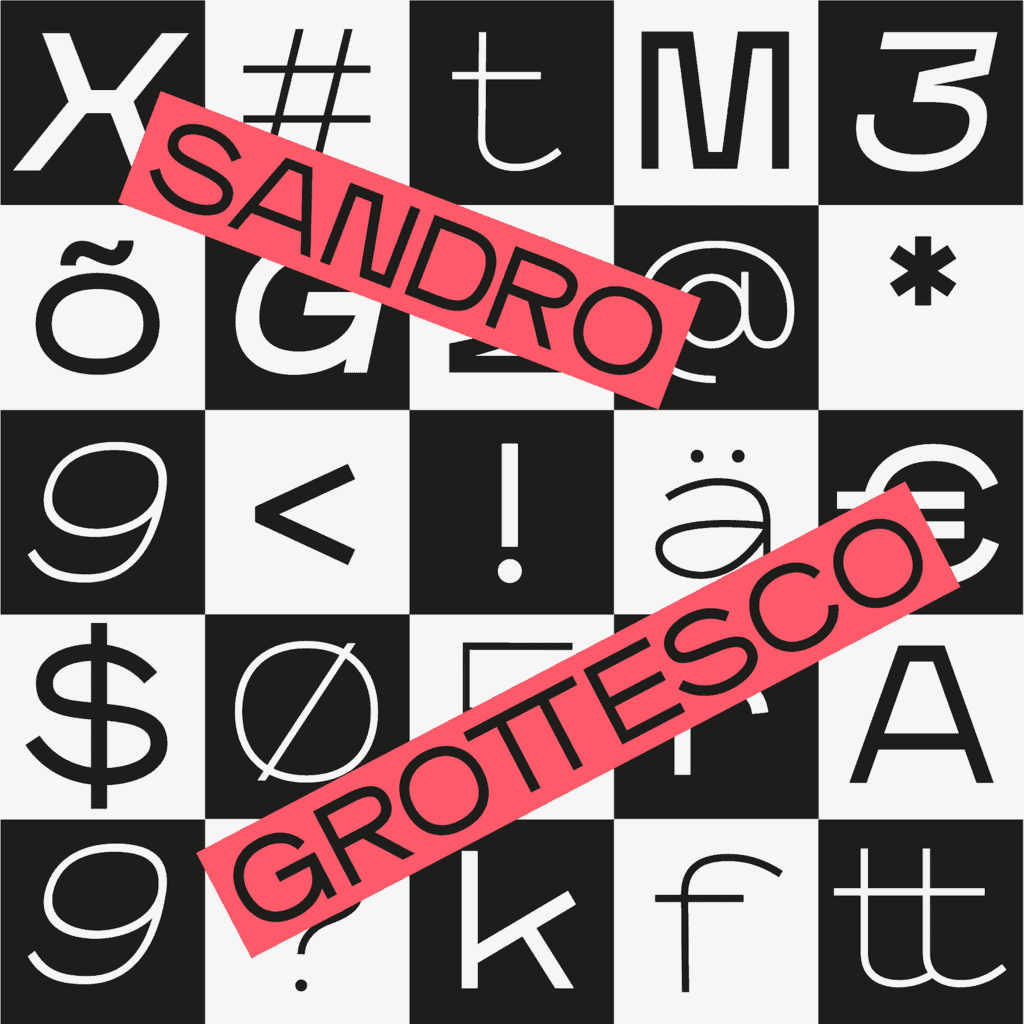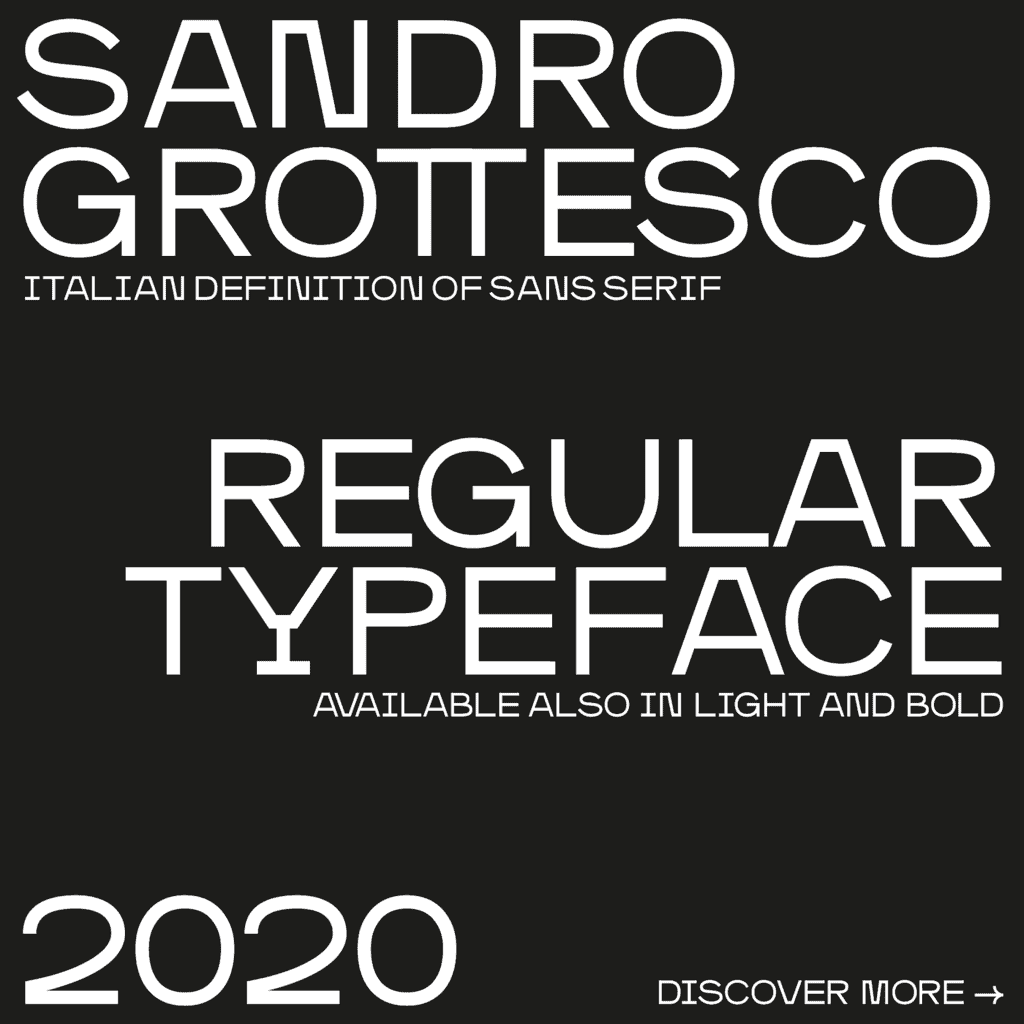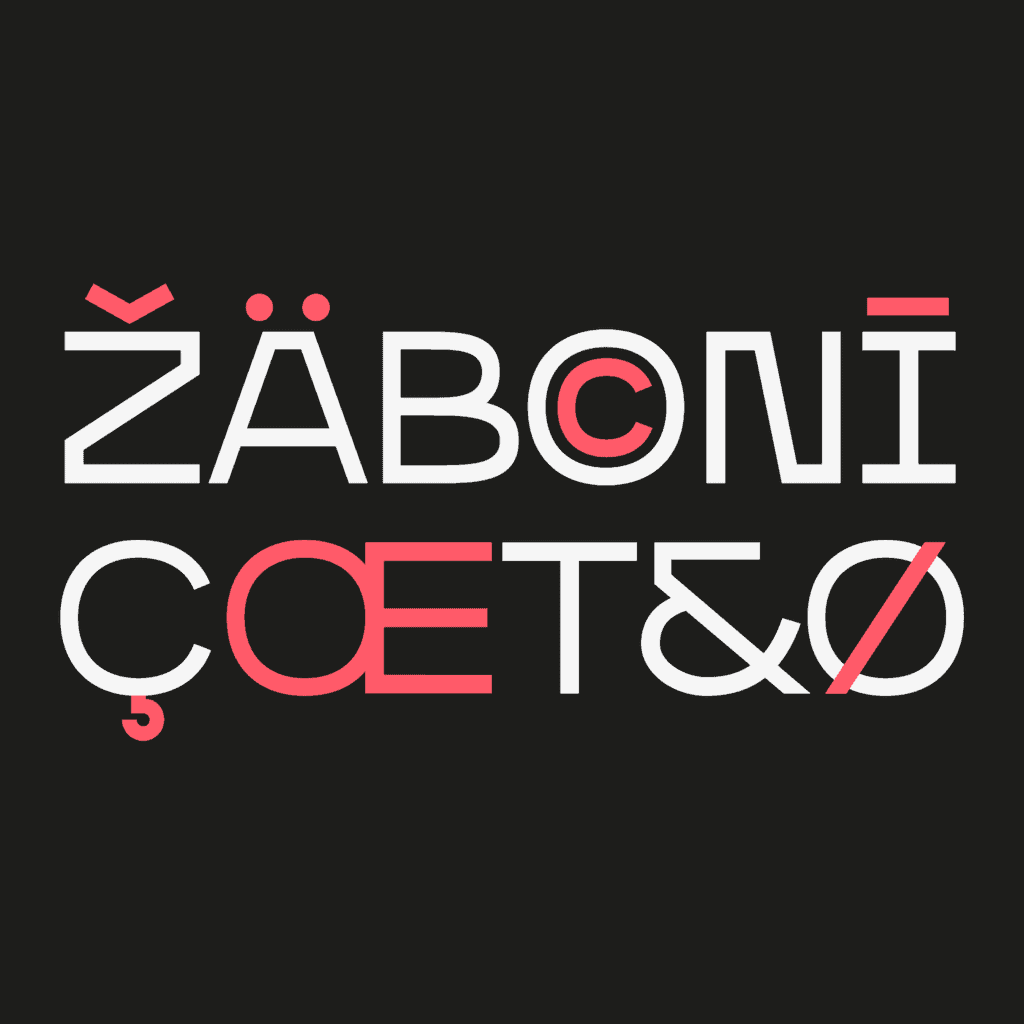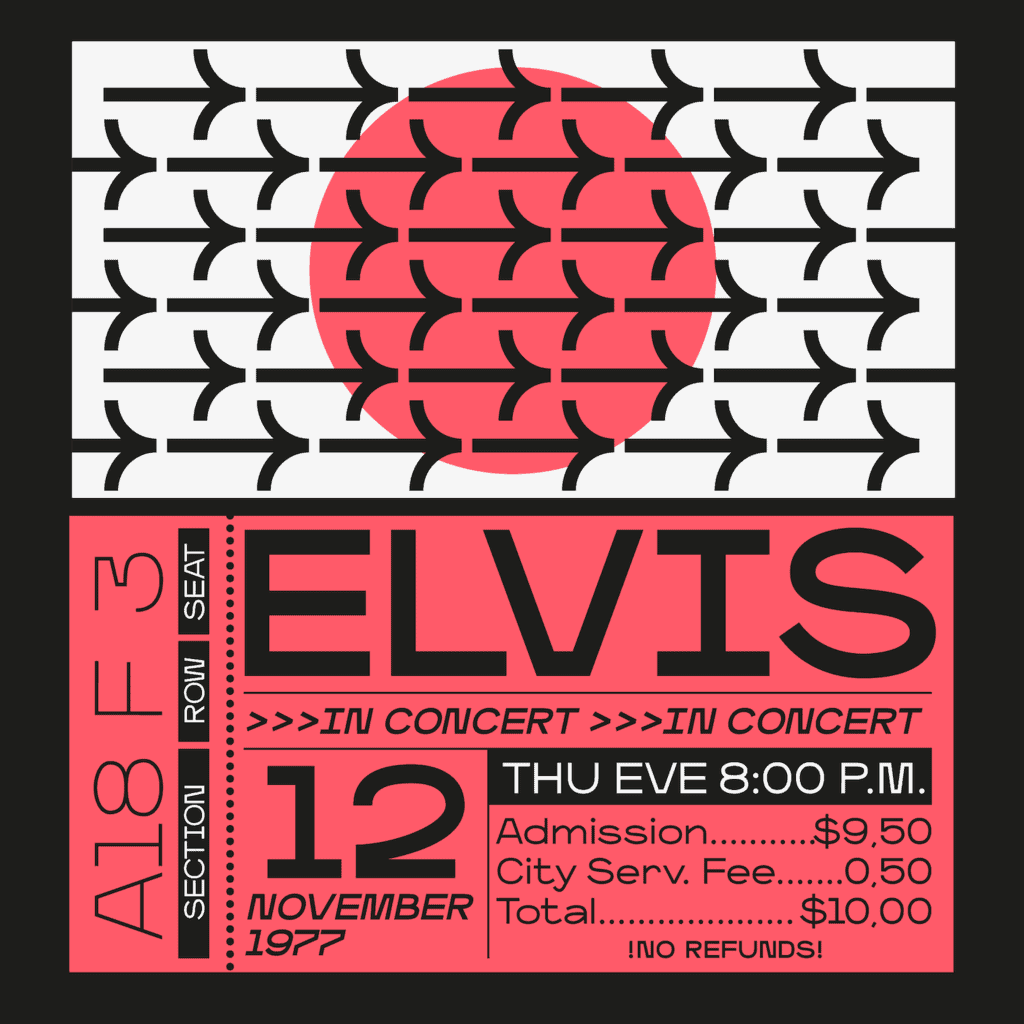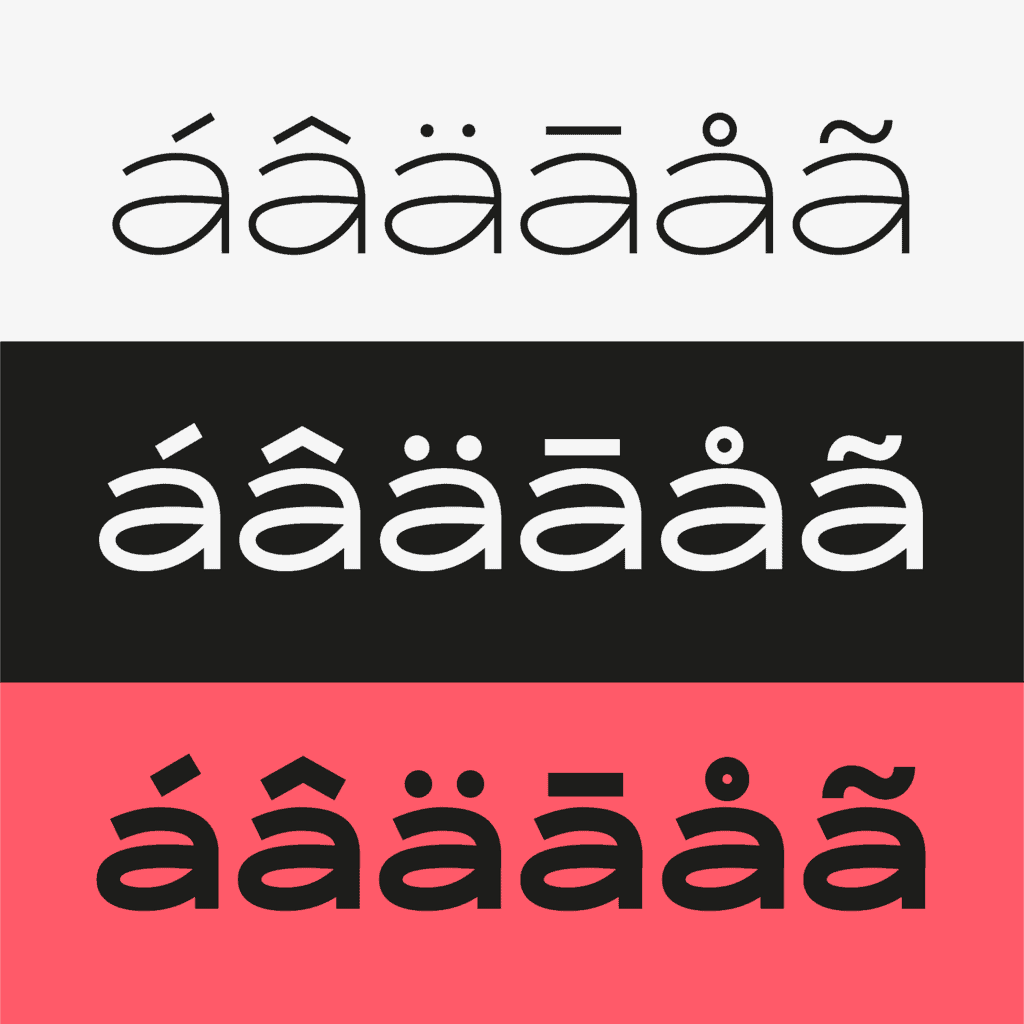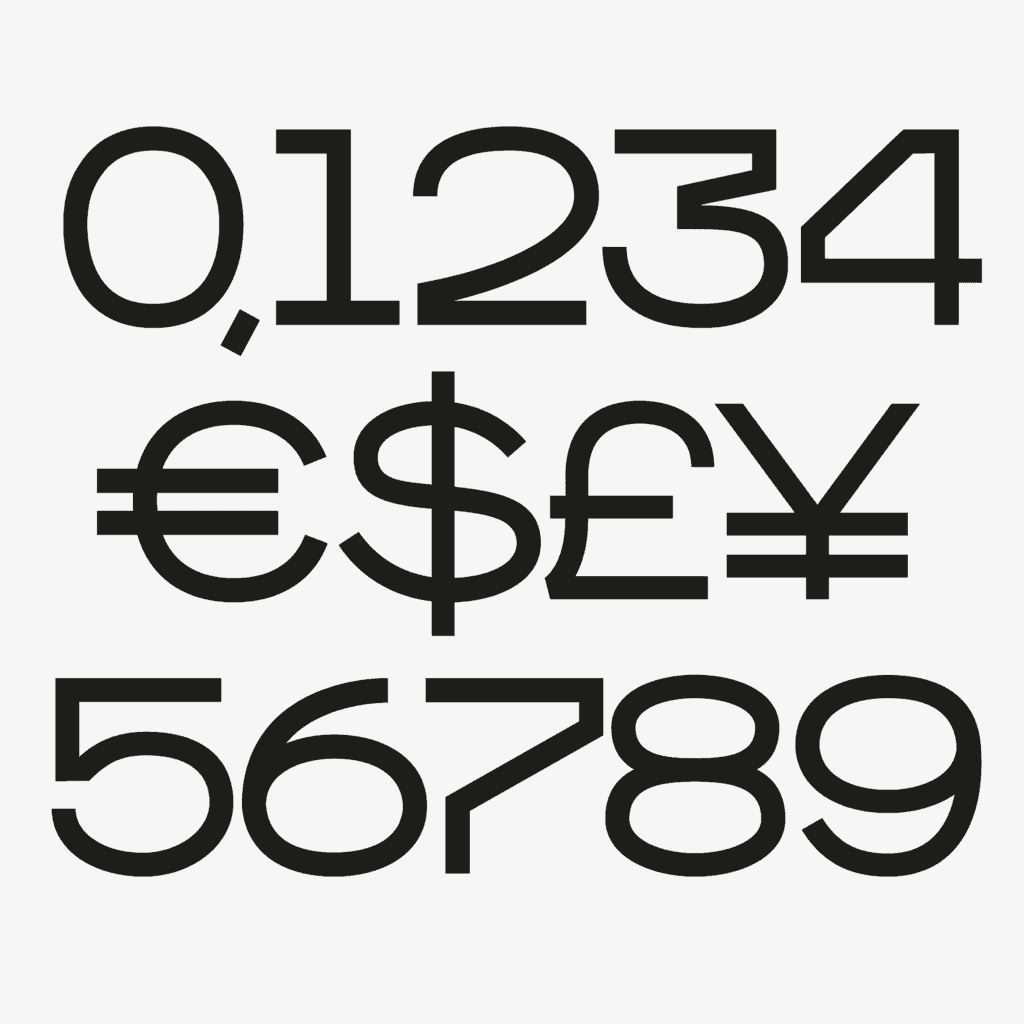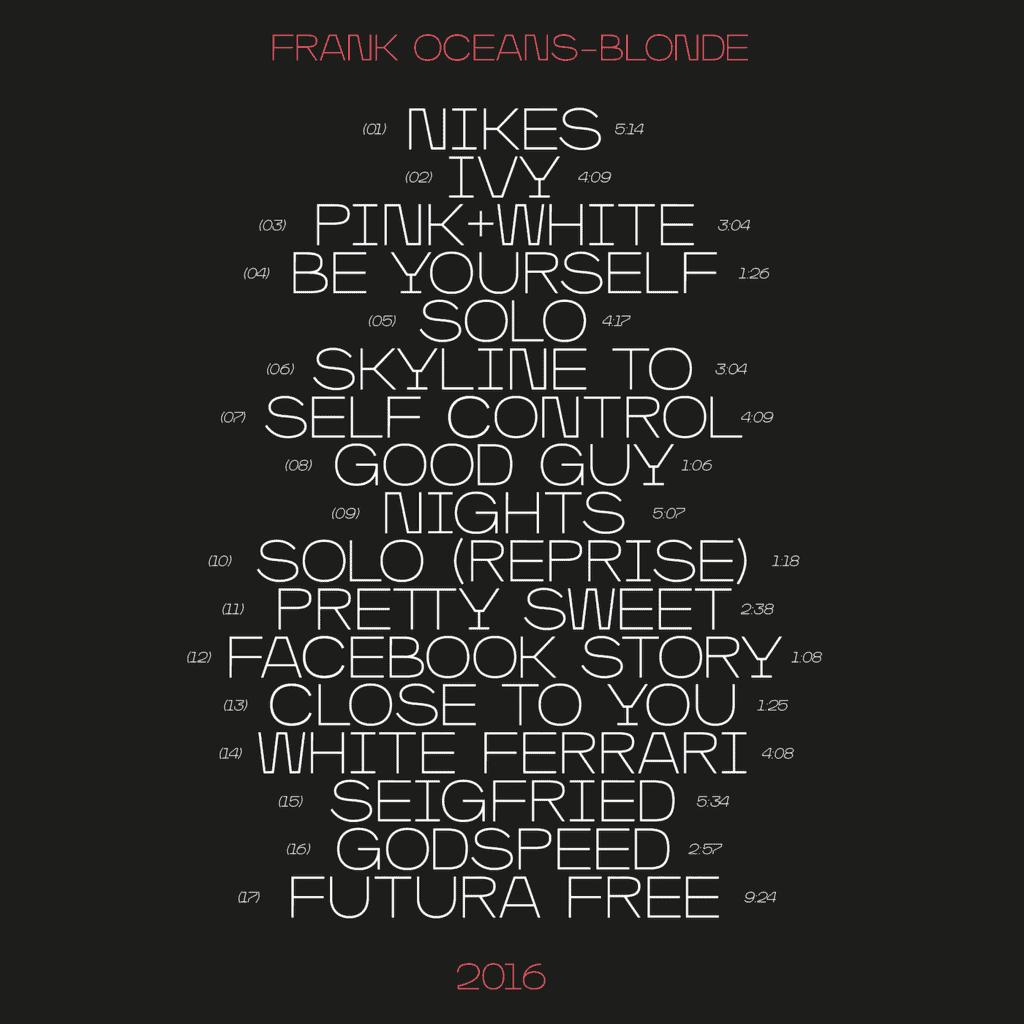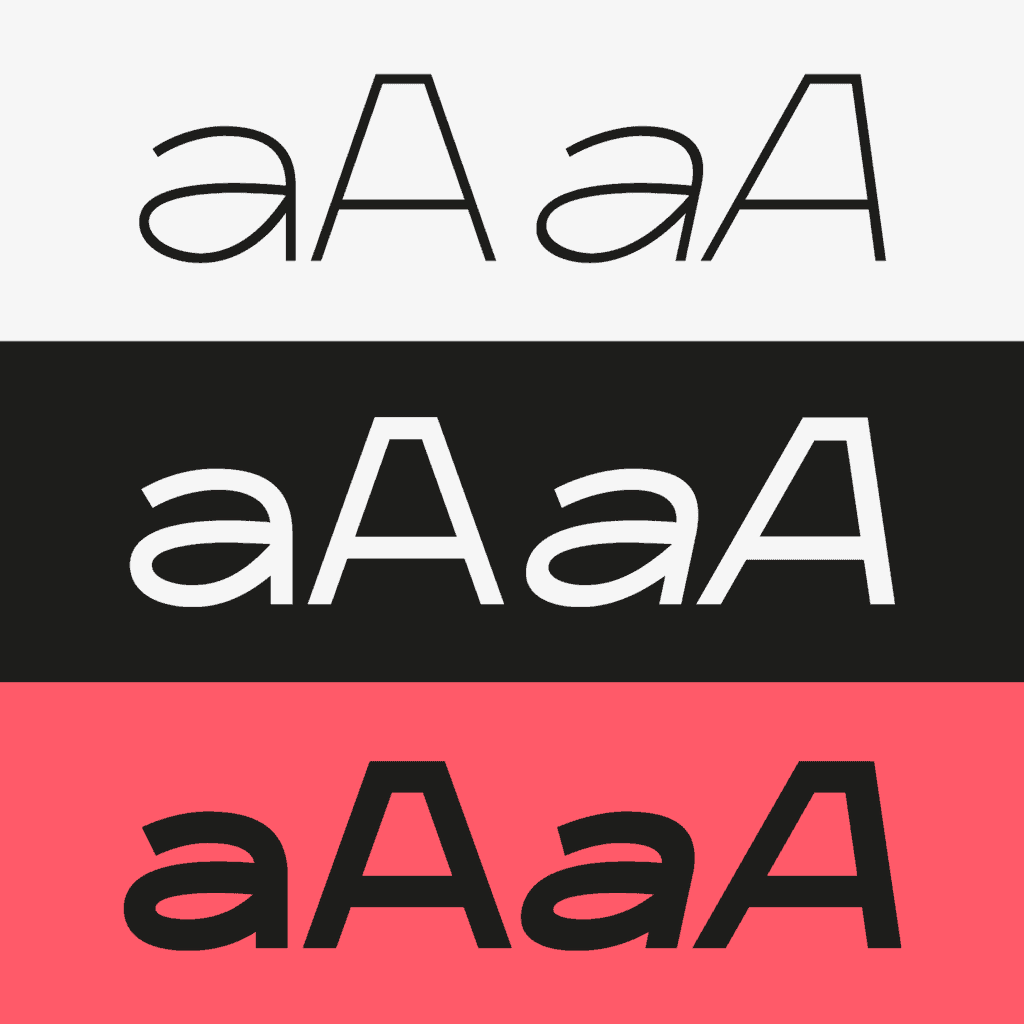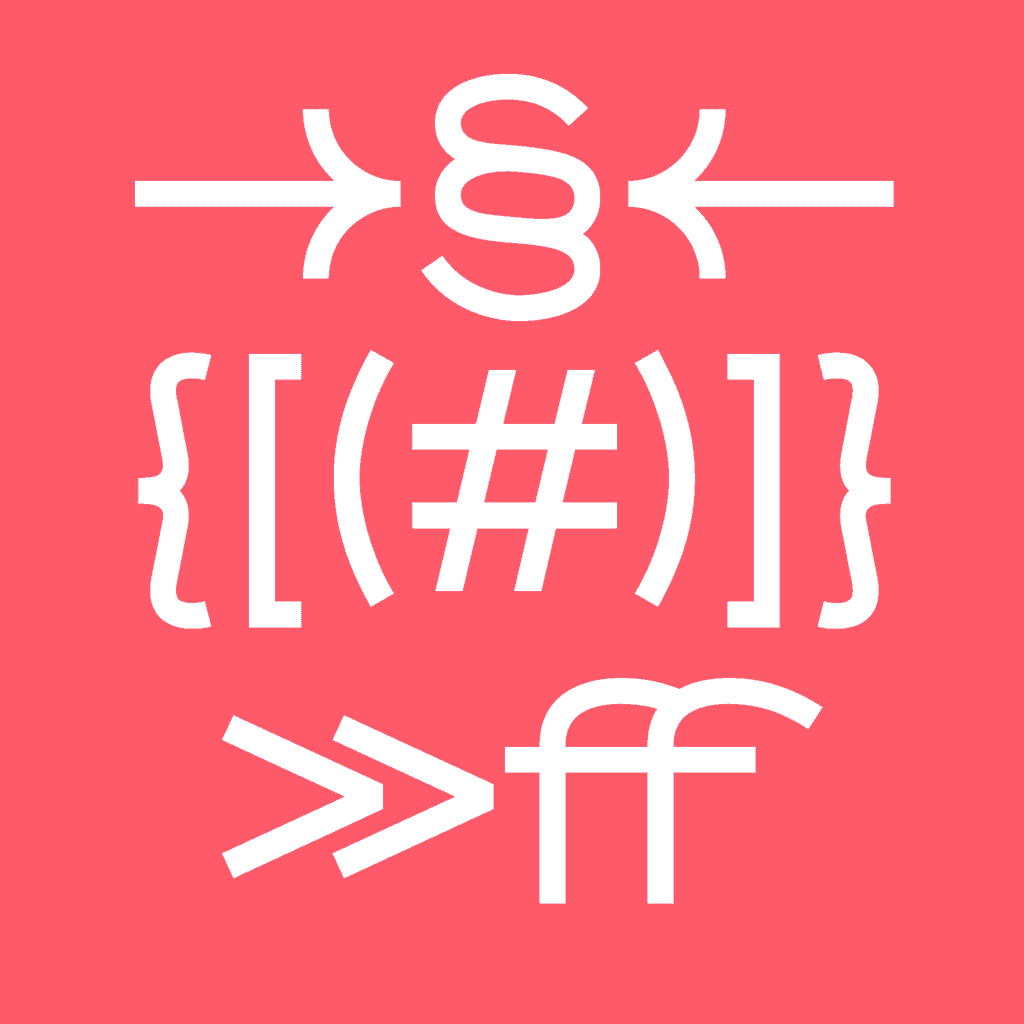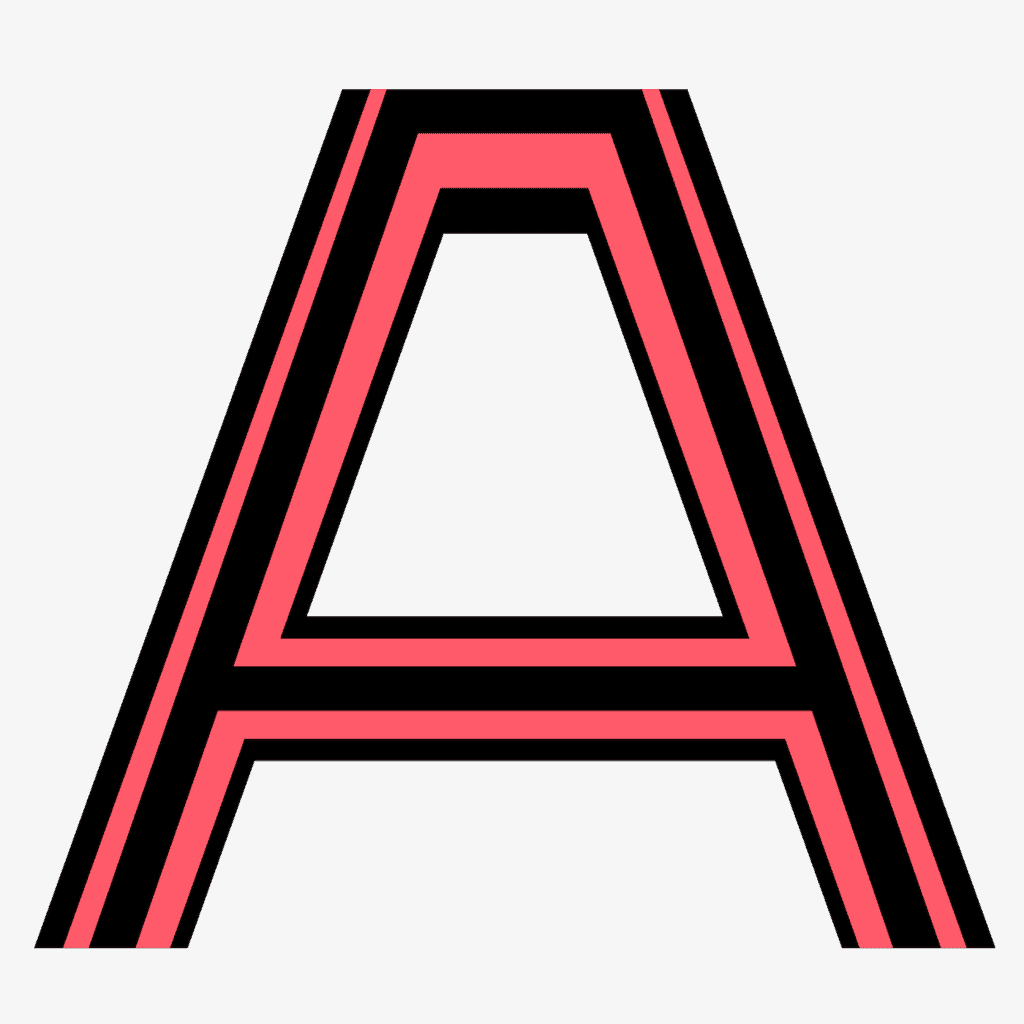
Sandro Grottesco
Sandro Grottesco is a versatile semi-extended typeface family offering three distinct weights—Light, Regular, and Bold—each accompanied by italic counterparts. Characterised by a striking contrast between sharp and soft shapes, Sandro exudes a playful and dynamic personality.
Ideal for creating impactful artworks with bold titles and clear hierarchies, Sandro Grottesco's design ensures readability and visual appeal across various design applications. Whether for editorial layouts, branding projects, or signage, its expressive forms bring a touch of whimsy and energy to any design.